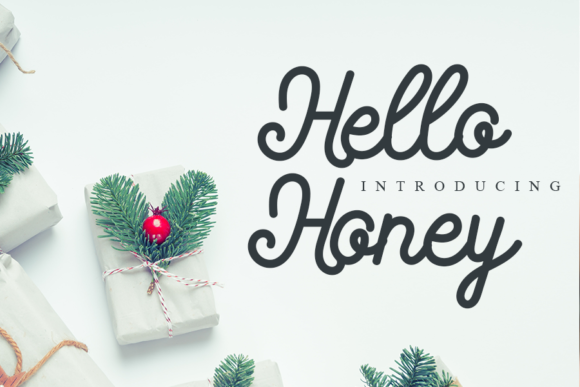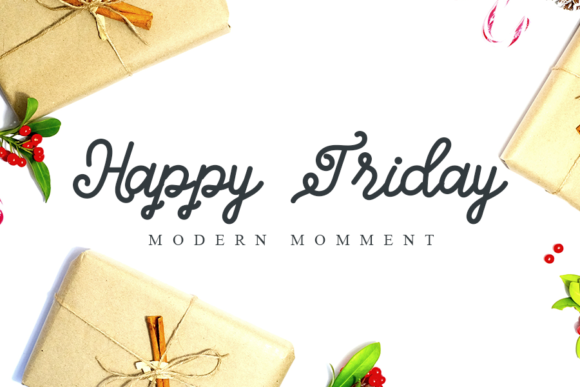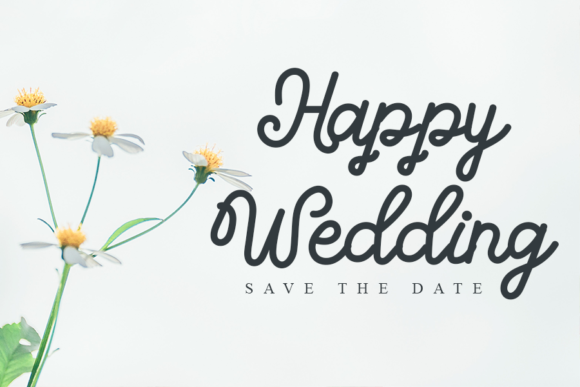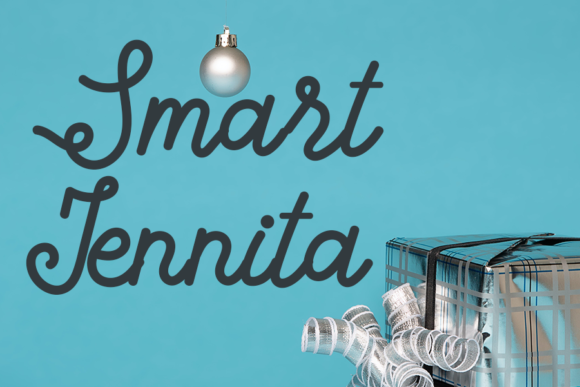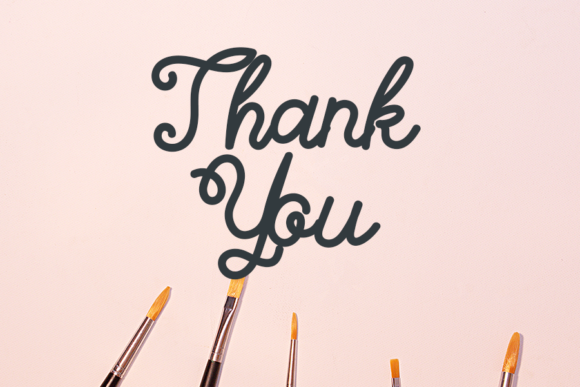
Hello Honey Font
About Hello Honey Font
Hello Honey is a beautiful and incredibly delicate handwritten font. Fall in love with its versatile style and use it to create spectacular designs!